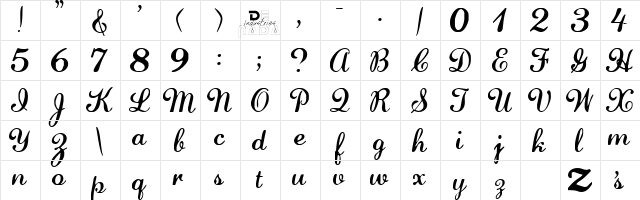
Lauren Script
Design Context for Lauren Typeface
Lauren flows with the natural rhythm of handwritten lettering, making it ideal for designs that call for warmth and personal expression.